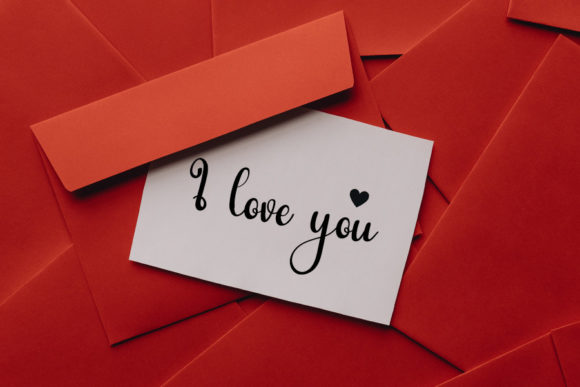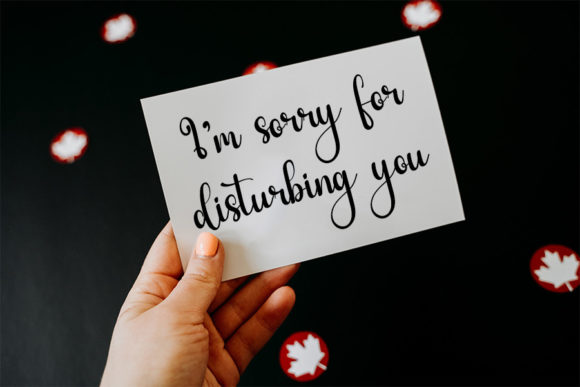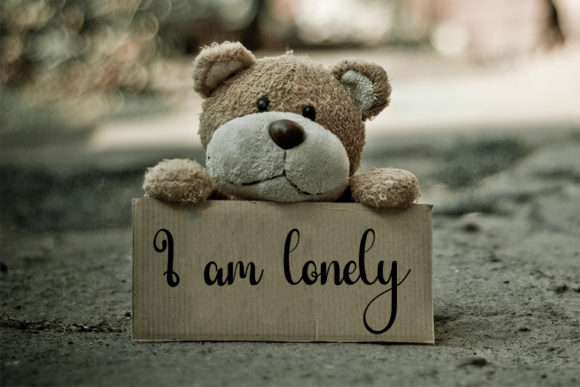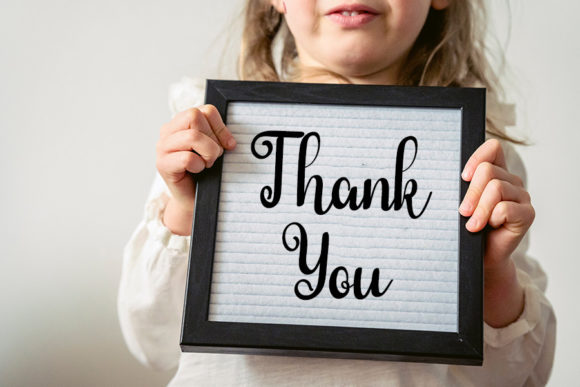
Jungle Font
About Jungle Font
“Jungle” presents itself as a lovely handwritten font, meticulously crafted to elevate your work with its elegant and curvy lines. This versatile font is an ideal choice for a range of applications, be it enhancing product packaging, contributing to a branding project, gracing magazine covers, adding charm to social media, bringing a touch of romance to weddings, or simply expressing words above different backgrounds.
The charm of “Jungle” lies in its elegant and curvy lines, offering a distinctive character to your designs. Envision this font enhancing product packaging, where its handwritten allure adds warmth and authenticity. The curvy lines ensure that “Jungle” stands out, infusing a delightful and graceful quality into your visual compositions.
In branding projects, “Jungle” becomes a valuable asset in creating a visual identity that exudes both elegance and approachability. Its adaptability allows it to seamlessly integrate into diverse contexts, enhancing the overall appeal of various brands.
For social media graphics or any design seeking a touch of sophistication, “Jungle” adds a lovely handwritten flair. Its script style injects an artistic and creative touch, making your content visually engaging and elegant.
As you incorporate “Jungle” into your creative endeavors, appreciate its ability to make your work stand out. Whether you’re working on print materials, digital media, or special occasions like weddings, this font serves as a beautiful and versatile choice, bringing an elegant and expressive quality to your designs.